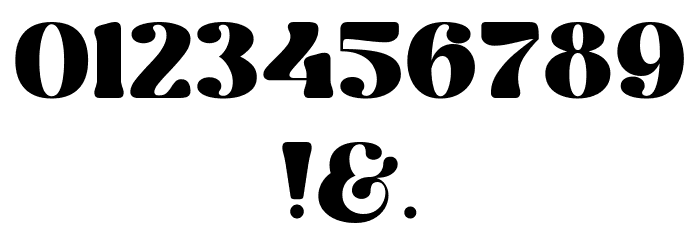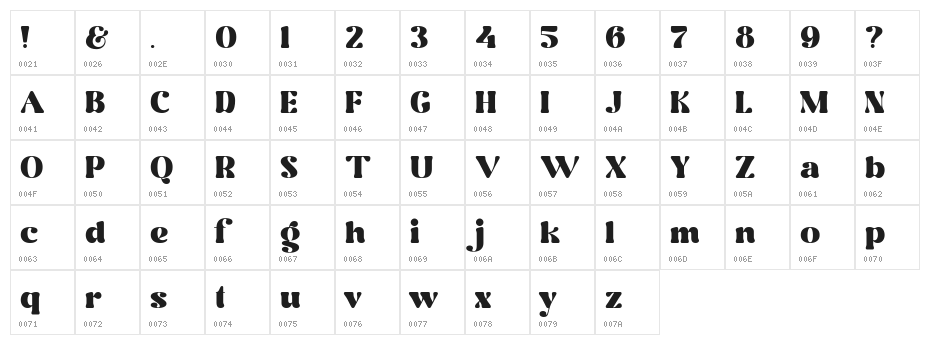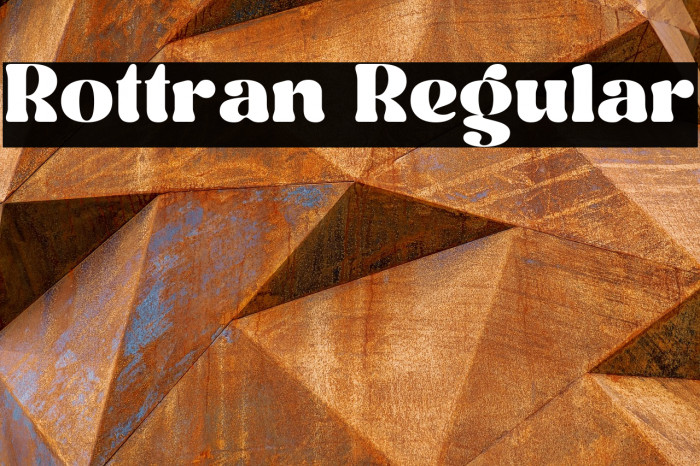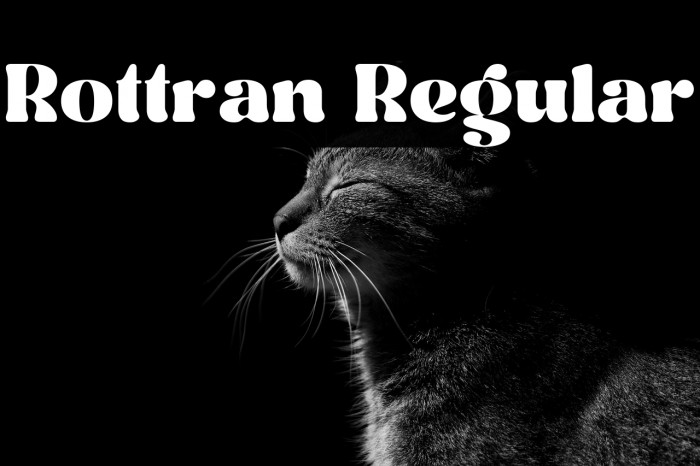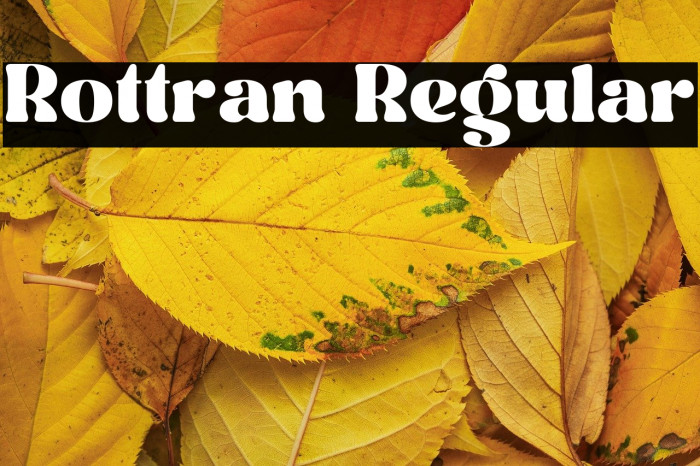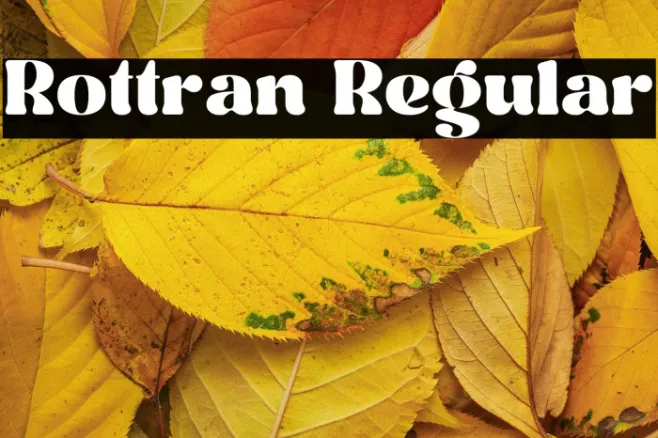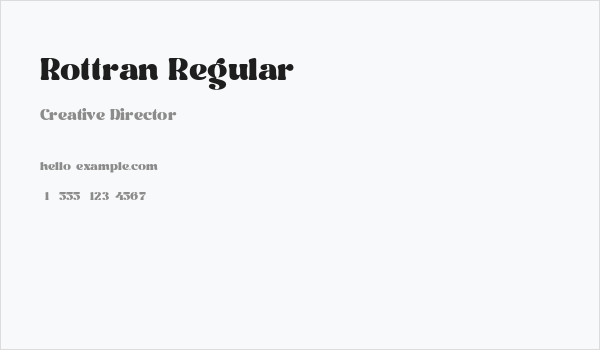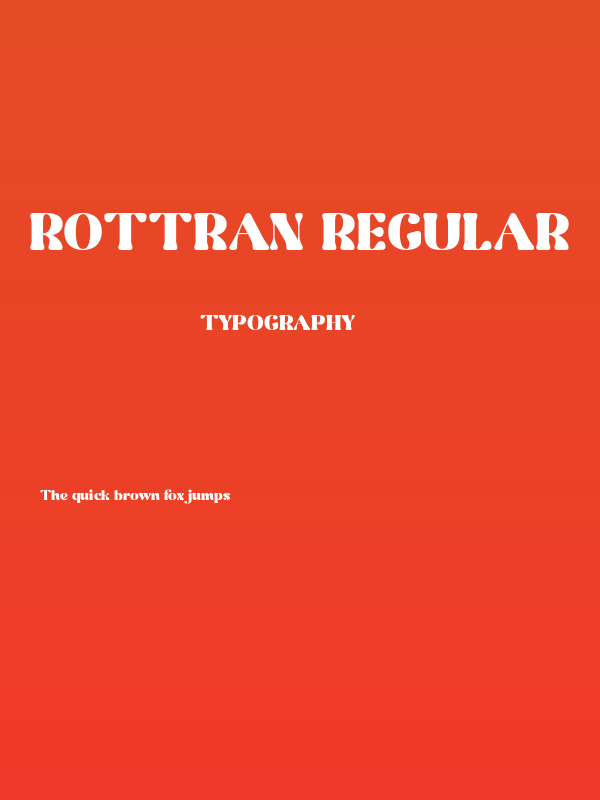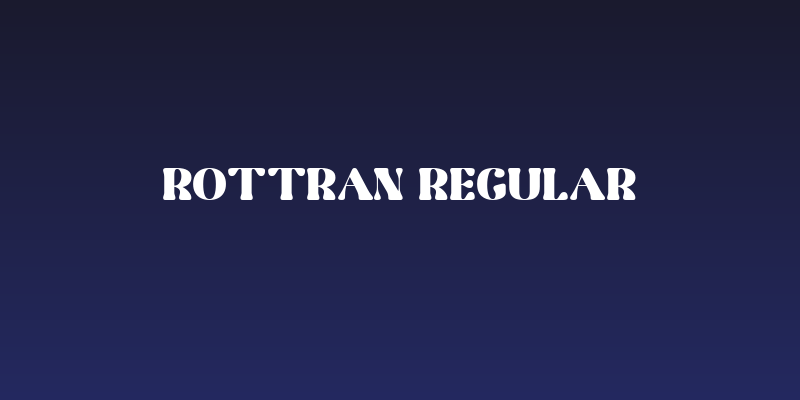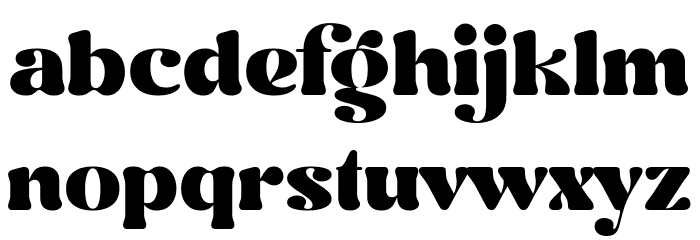
Rottran Regular Font
Rottran Regular Description
This font exhibits a bold and distinctive style, characterized by its thick, rounded serifs and high contrast between thick and thin strokes. The uppercase letters are particularly striking, with a strong presence that commands attention. The lowercase letters maintain a consistent style, offering a harmonious blend with the uppercase. Numbers and special characters are equally bold, ensuring readability and impact. The overall design is both modern and decorative, making it suitable for a variety of creative applications.
| Proposed Projects | Ideal for branding, headlines, posters, and any project requiring a strong visual impact. |